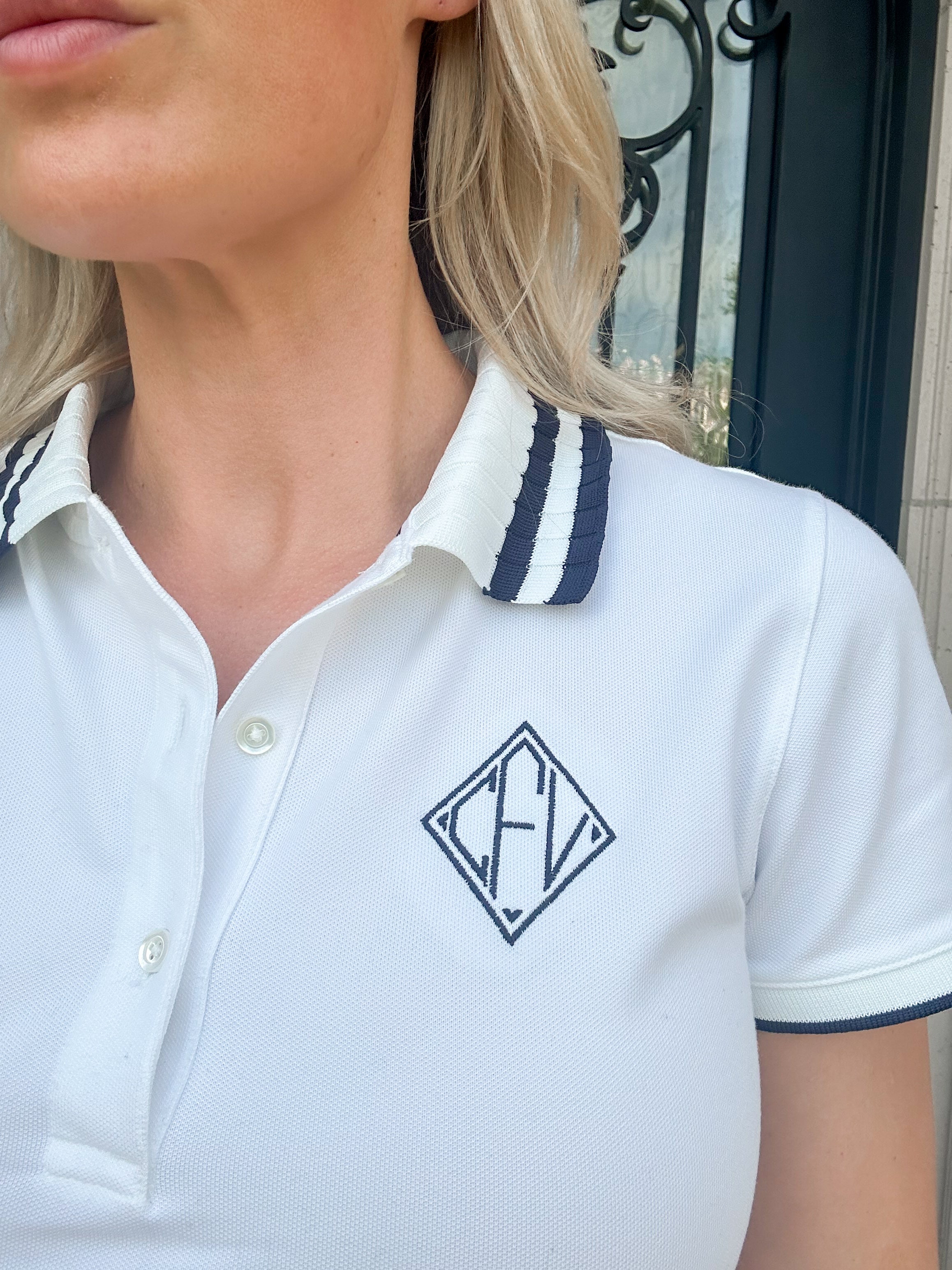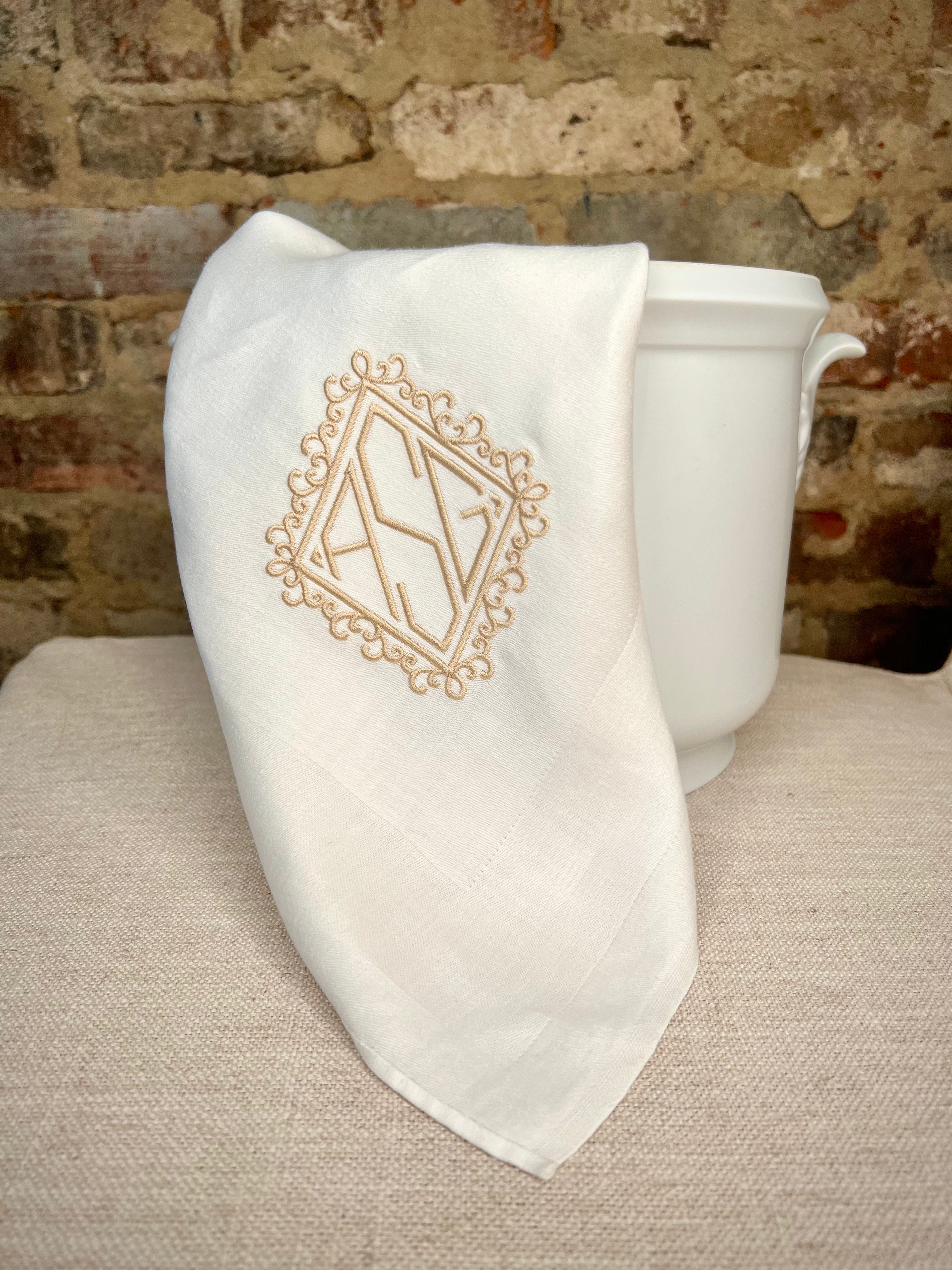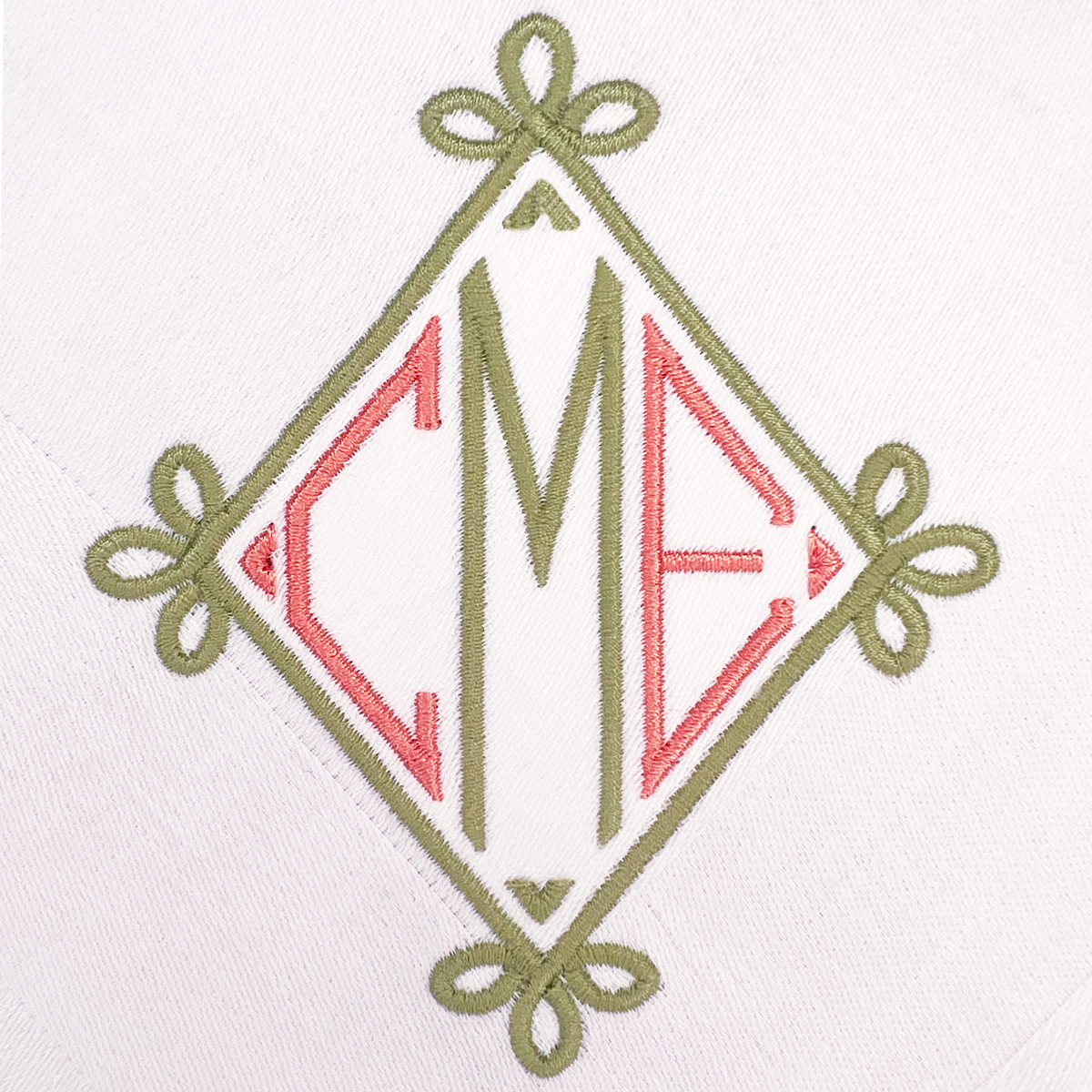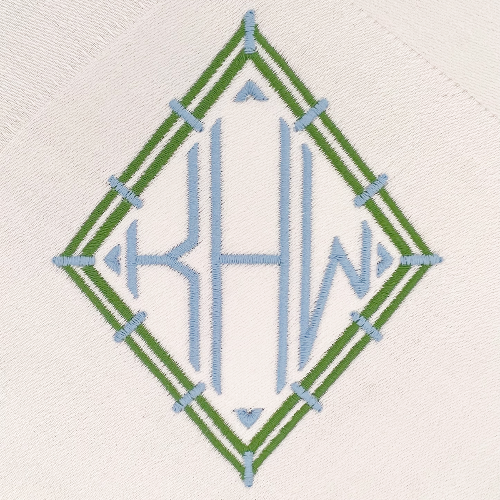
Monogram Diamond Font for Embroidery
A fun twist on an old favorite, our Monogram Diamond features an edgy, geometric shape with beautiful clean corners. In 2-letter or 3-letter, this sharp font is perfect for that added touch of personalization.
7 additional frames create a surround to complement the font.
Perfect for embroidery, the careful attention in the digitization of each design makes personalization unique and beautiful!